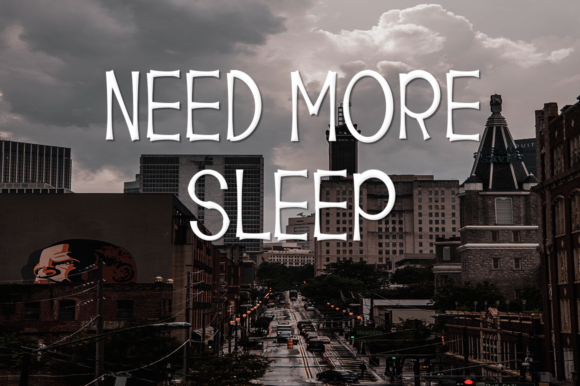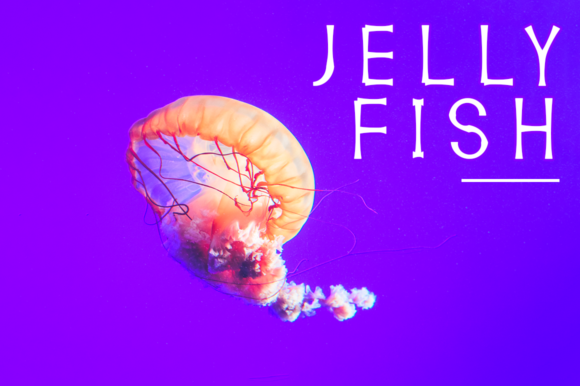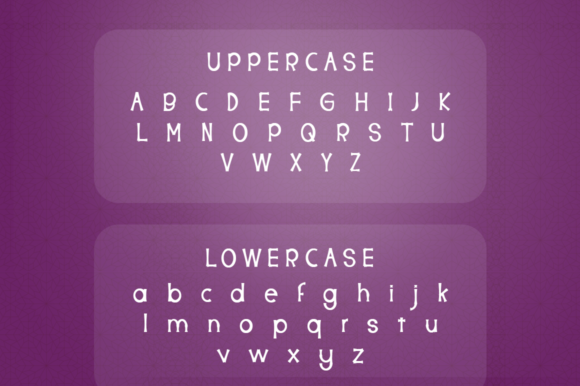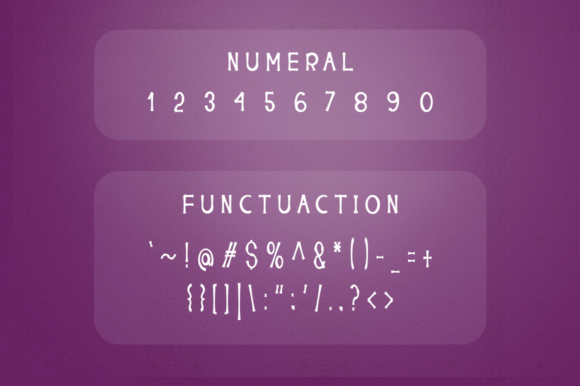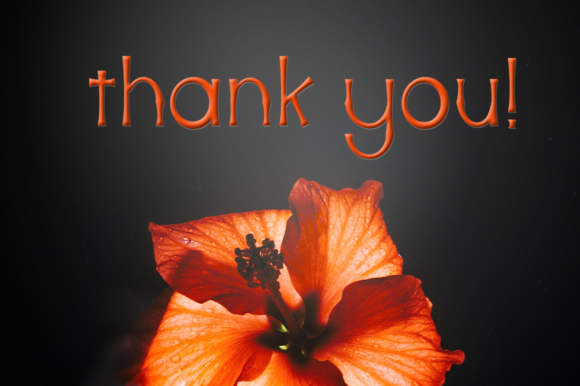
Introduction to Nevalex Font
Have you ever been stuck in the middle of a creative project, scrolling through your font library, desperately searching for the perfect font to bring your vision to life? It’s a familiar feeling for designers everywhere, but what if you stumbled upon a font that effortlessly elevated your design, making it stand out from the crowd? That’s exactly what happens when you discover Nevalex Font, a stunning display font that’s sure to become your go-to design resource.
With its sleek, modern design and versatility, Nevalex Font is the perfect addition to any font library. Whether you’re working on a high-quality design project or simply looking for a unique touch to add to your creative endeavors, this font has got you covered. And the best part? Nevalex Font is available for free download, making it an accessible design resource for designers of all levels.
Key Features of Nevalex Font
- Includes a variety of styles and weights, perfect for adding depth to your design
Honest Review: Nevalex Font
I recently came across the Nevalex Font while searching for a free download for a creative project, and I must say it’s been a game-changer. The high quality of this font is instantly noticeable, making it perfect for a variety of design applications.
One of the standout features of Nevalex Font is its versatility. It’s suitable for both digital and print projects, and its transparent background makes it easy to customize and layer with other design elements. ✨
- Suitable for digital and print projects
While Nevalex Font is an excellent resource, I did encounter a few limitations. For one, it may not be the best choice for projects requiring a large character set, as it’s a relatively new font and still lacks some characters. ⚠️
Overall, I’m extremely impressed with the Nevalex Font. Its quality, versatility, and ease of use make it a valuable addition to any designer’s toolkit. If you’re looking for a high-quality, free font for your next creative project, I highly recommend giving Nevalex a try.
The Nevalex Font is commonly used in creative projects such as logo design, brochures, flyers, and business cards. Its transparent background makes it easy to use and customize in different design applications.